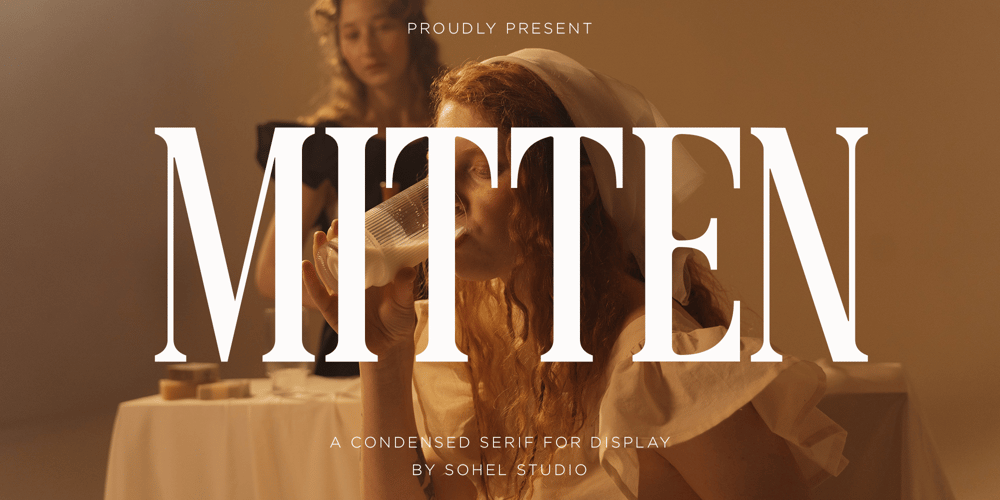
Mitten Condensed Font Family was designed by Akhmad Husain Rifa’i and published by Sohel Studio. Mitten Condensed contains 4 styles and family package options. “Mitten” is a bold serif that has a classic and bold style. Depicted to provide basic headlines that are confident and impressive – while still feeling warm and welcoming. there are 3 different styles that you can apply in your design projects. This typeface is perfect for an book or movie title design, fashion brand, magazine, clothes, lettering, quotes, social media posts and so much more.Mitten Features: · 3 Weights font (Regular,Italic,Bold) · Uppercase And Lowercase · Numerals & Punctuation · Accented characters · Multilingual Support · PUA Encoded While using this product, if you encounter any problem or spot something we may have missed, please don’t hesitate to drop us a message. We’d love to hear your feedbacks in order to further fine-tune our products. Thanks and have a wonderful day